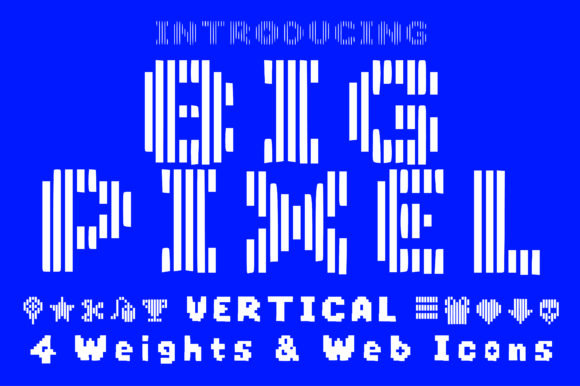
Unleash the Cosmic Power of Your Designs
Imagine you’re deep in space, surrounded by stars and galaxies. You’re brainstorming a new sci-fi project, and suddenly, a burst of inspiration hits you. You envision a font that’s bold, futuristic, and straight out of a cyberpunk movie. That’s when you stumble upon the Big Pixel Vertical Font – a game-changing display font that’s about to revolutionize your design world.
This authentic digital font is more than just a visual treat; it’s a statement piece that screams “I’m a sci-fi enthusiast!” Whether you’re working on a movie poster, a video game, or a futuristic website, the Big Pixel Vertical Font is the perfect companion to help you create a truly out-of-this-world experience.
Big Pixel Vertical Font Key Features
- Unique Characteristic: The font features a unique vertical design, ideal for digital displays and signage.
Big Pixel Vertical Font Review
First off, I’d like to say that I’m a big fan of creative and unique font designs. The Big Pixel Vertical Font delivers on that front. The ✨ bold and chunky pixel design is eye-catching and would be perfect for creating a nostalgic or retro vibe in your project. It’s also highly customizable, allowing you to adjust the size, color, and spacing to fit your needs.
- ✨ Unique and bold design that grabs attention
- Highly customizable with various options for size, color, and spacing
- Works well for creating a nostalgic or retro vibe in your project
However, there are a few limitations to consider. The font may not be the best choice for projects that require a more subtle or minimalist aesthetic, as the bold pixel design can be overwhelming. Additionally, the font may not render as smoothly on certain platforms or devices, which could affect its overall appearance.
- ⚠️ May not be suitable for projects with a more subtle or minimalist aesthetic
- ⚠️ May not render as smoothly on certain platforms or devices
Overall, I’d say that the Big Pixel Vertical Font is a great choice for projects that need a bold and eye-catching font. While it may have some limitations, its unique design and high customizability make it a versatile and effective option for designers.
Use the Big Pixel Vertical Font to create eye-catching headings and titles.
It’s ideal for digital signage, posters, and social media graphics.